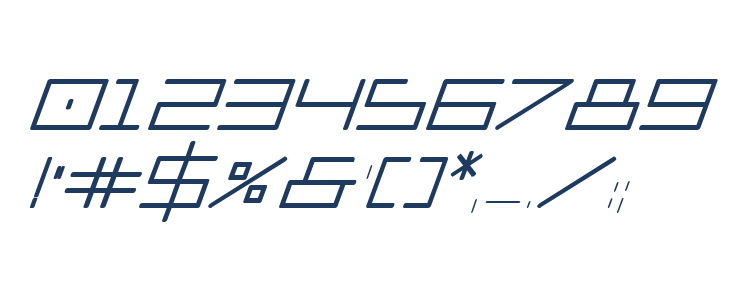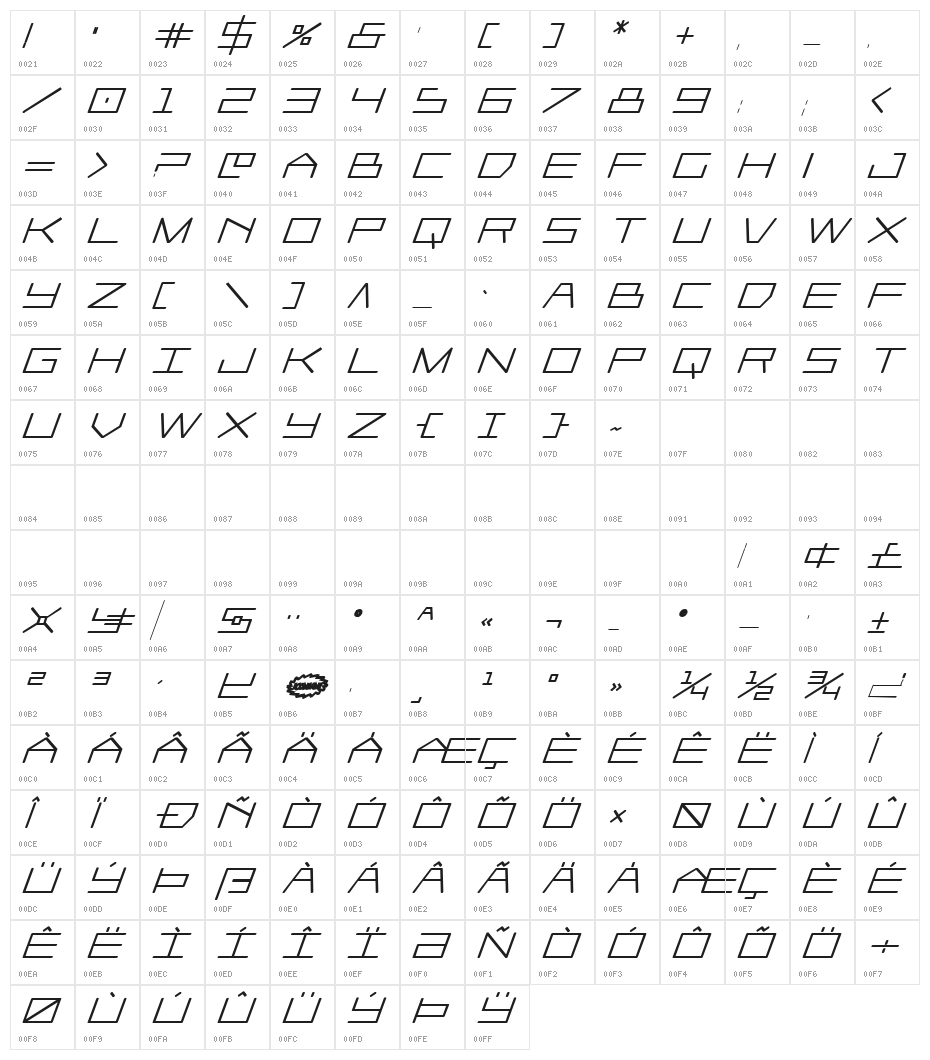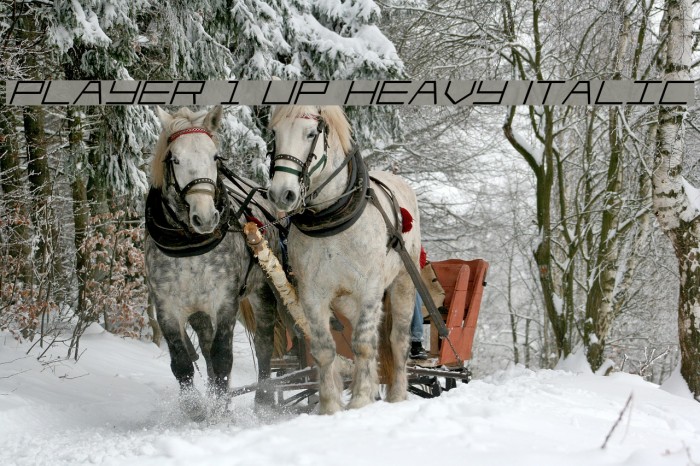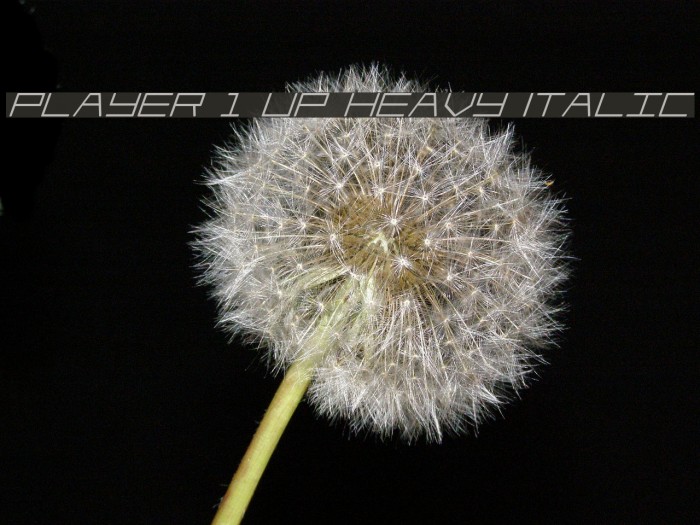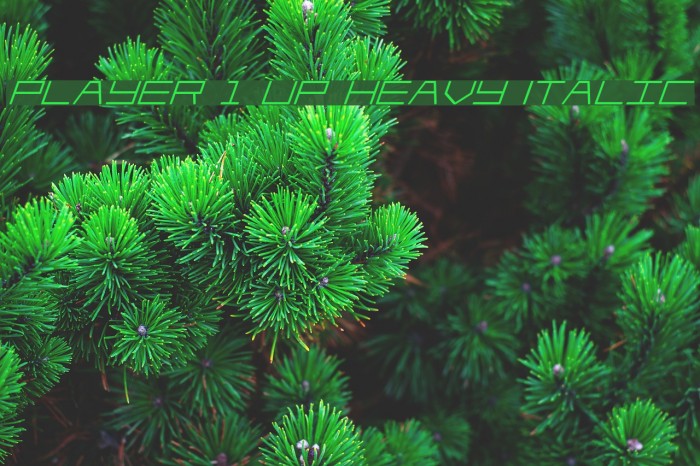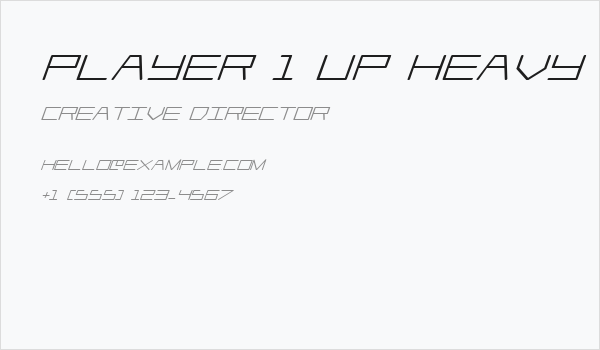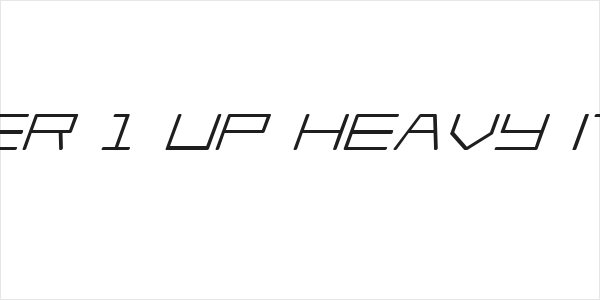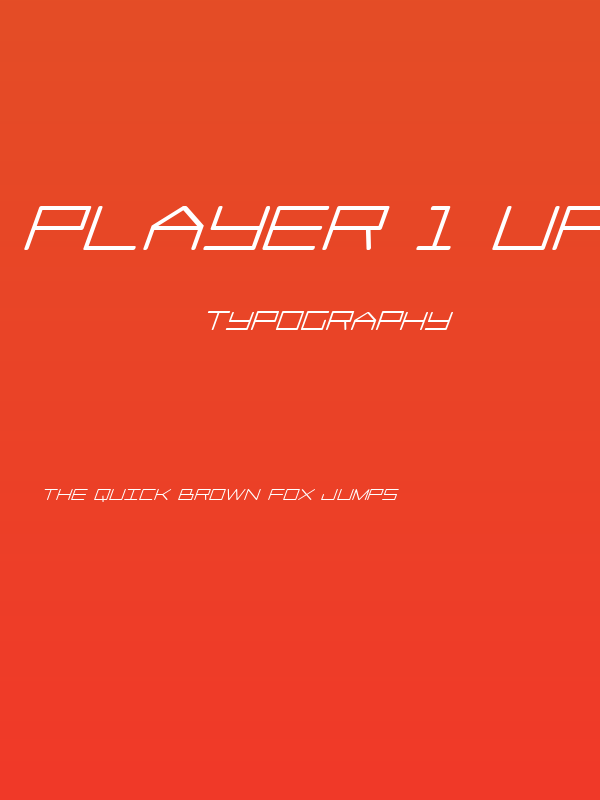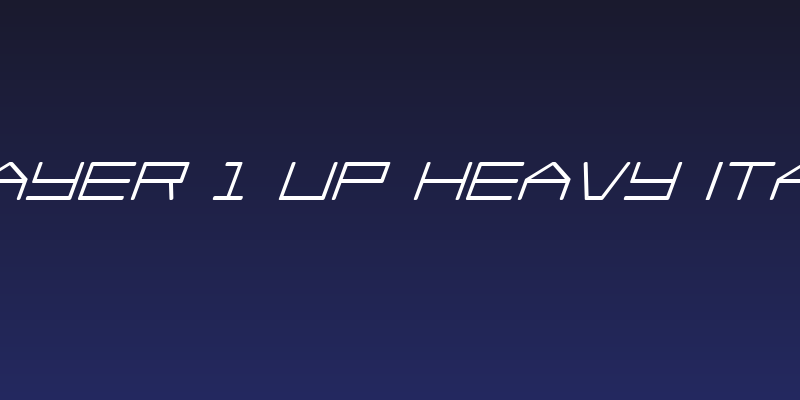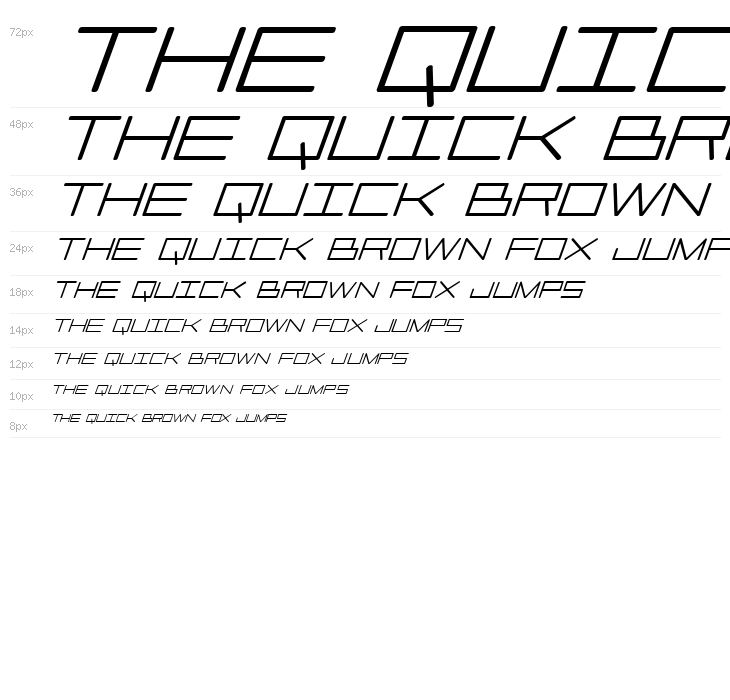
Player 1 Up Heavy Italic Font
Player 1 Up Heavy Italic Description
This font features a futuristic and angular design, characterized by its geometric and sharp-edged letterforms. The uppercase and lowercase letters maintain a consistent slant, giving the typeface a dynamic and forward-moving appearance. The numerals and special characters follow the same angular style, ensuring uniformity across all glyphs. The font's structure is clean and precise, with a modern aesthetic that is both bold and eye-catching. Its unique style makes it suitable for projects that require a contemporary and tech-inspired look.
| Proposed Projects | Ideal for technology branding, video game titles, sci-fi movie posters, and digital interfaces. |